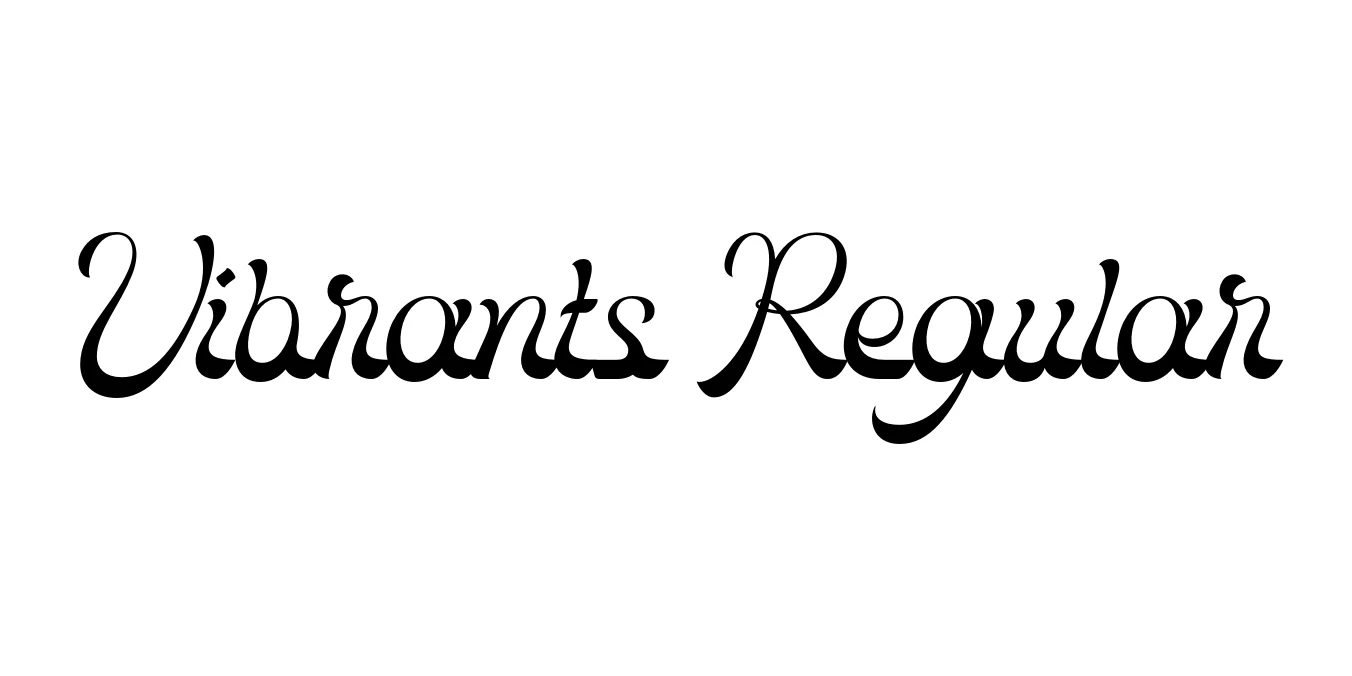
Vibrants Regular
Designed by Sronstudio
Vibrants Regular is a dynamic and expressive brush script font designed to bring energy and movement to any creative project. Created with a natural hand-drawn feel, it features fluid strokes and organic textures that mimic the look of real ink on paper. This typeface is particularly effective for designs that require a bold, personal touch, making it a favorite among modern designers looking for an authentic calligraphic aesthetic.
The font includes a comprehensive set of characters, often accompanied by stylistic alternates and ligatures that allow for a more customized and professional finish. Its versatility makes it suitable for a wide range of applications, from high-impact headlines to delicate branding elements. Whether you are working on a digital campaign or a print layout, Vibrants Regular offers a perfect balance of legibility and artistic flair.
Vibrants Regular Best Uses
Perfect for creating bold and memorable brand identities.
Ideal for eye-catching Instagram quotes and visual graphics.
Adds an artisanal, hand-crafted feel to product labels and boxes.
Excellent for t-shirt slogans and high-energy streetwear designs.